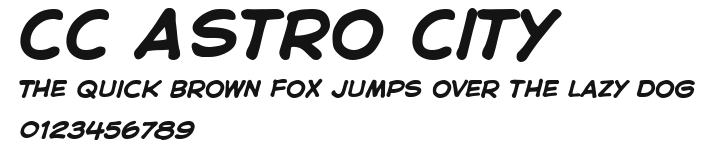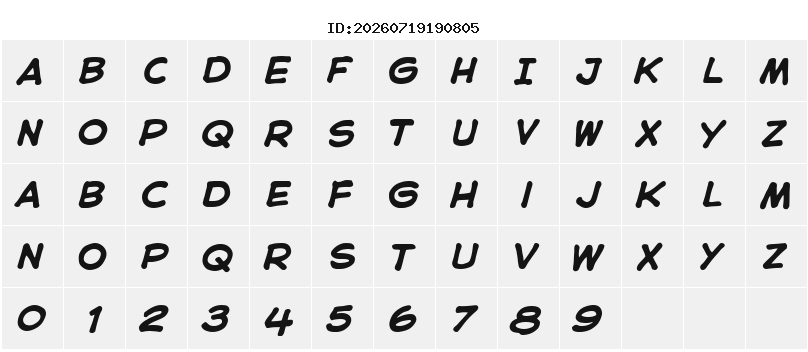
• Font Name: CC Astro City
• Full Font Name: CC Astro City Bold Italic
About CC Astro City.ttf
CC Astro City.ttf is a modern, elegant sans-serif font designed for ultimate readability and visual harmony. Perfect for branding, headlines, web design, and print materials.